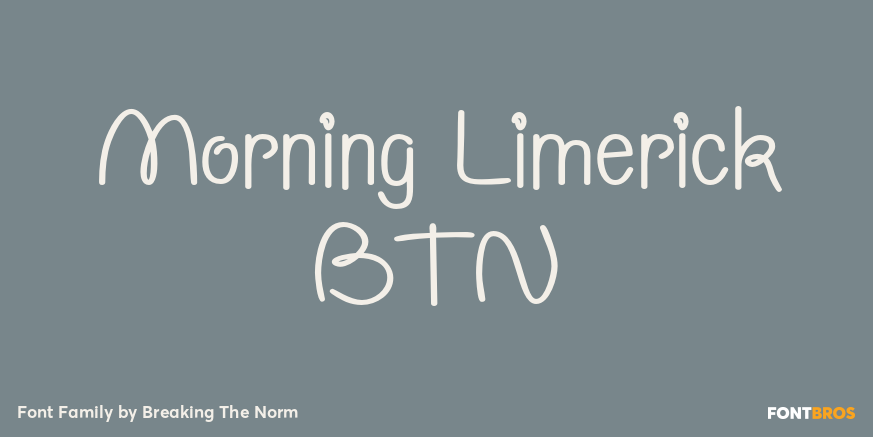
Morning Limerick BTN
About Morning Limerick BTN
Morning Limerick is a playful, textual typeface flowing with curls and loops, yet easily and cleanly readable. Its variants include light and regular weights and widths from condensed to wide. Thus allowing it to be highly versatile for all sorts of…